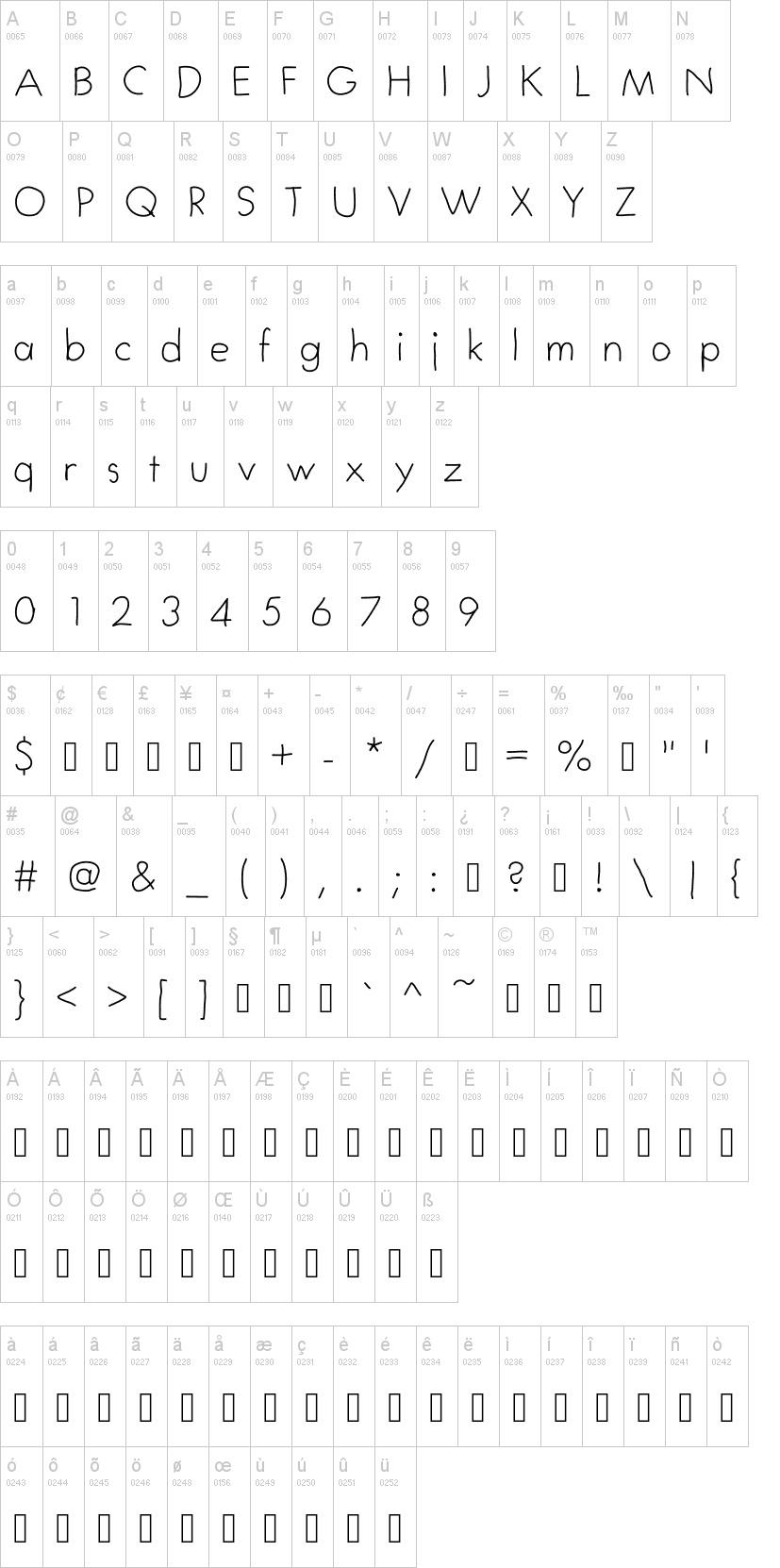
Шрифт My First Font
I downloaded an application for the iPad called iFontMaker and created this based on my own handwriting. Perhaps there will be more to come.